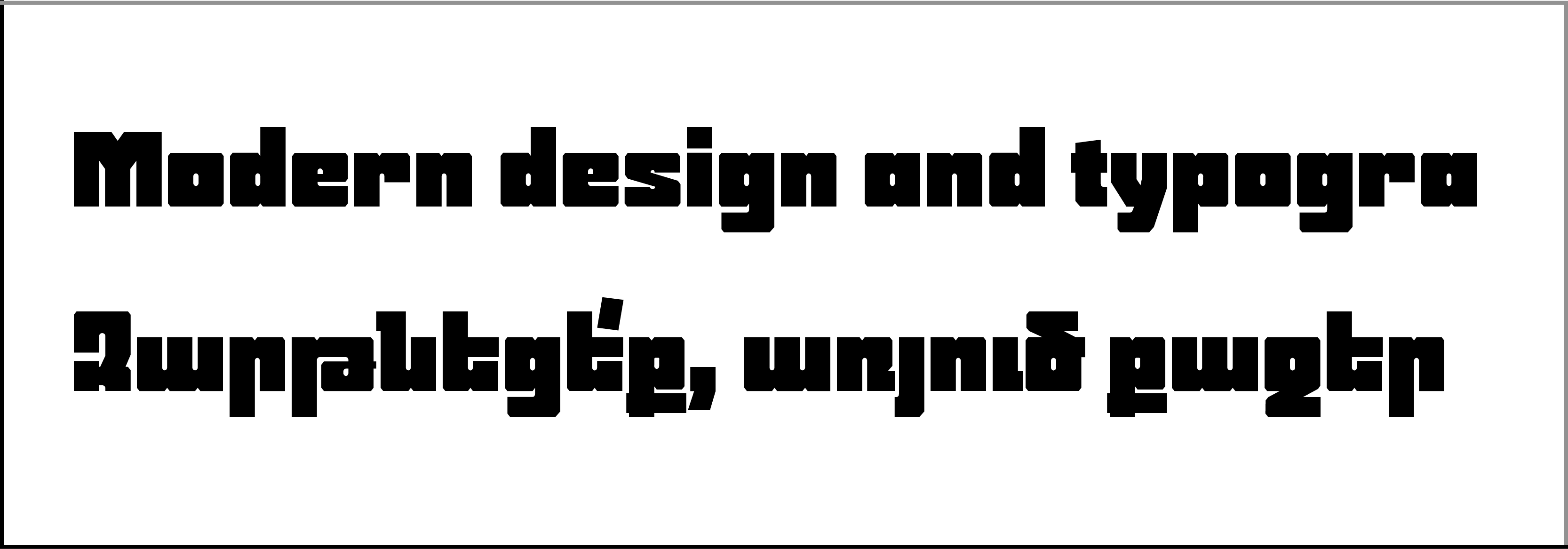
Display typefaces, Edik Ghabuzyan
GHEA Parquet
Design date: 2020
The font family includes Armenian and Latin alphabet systems.
The font can be used as a title and display font.